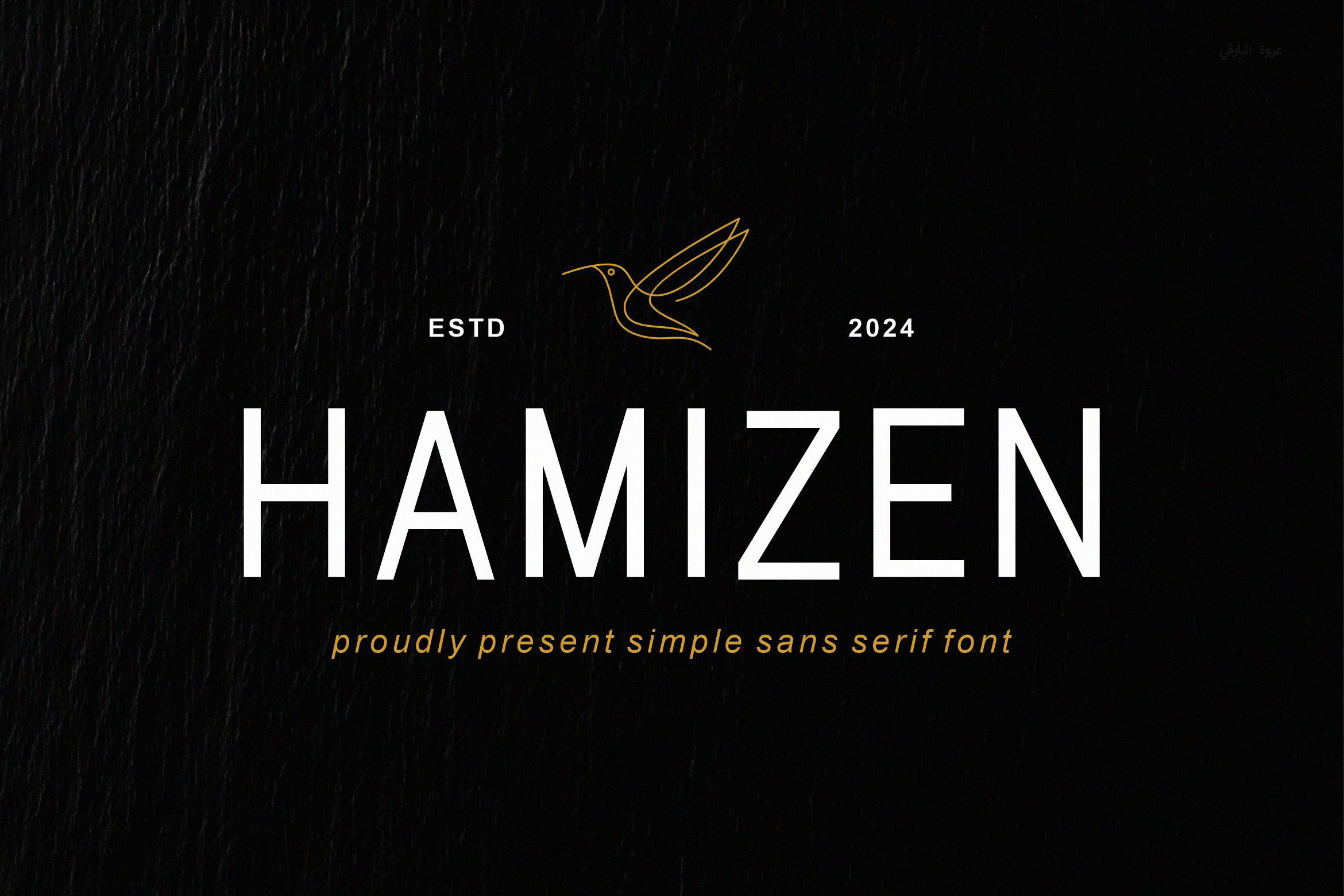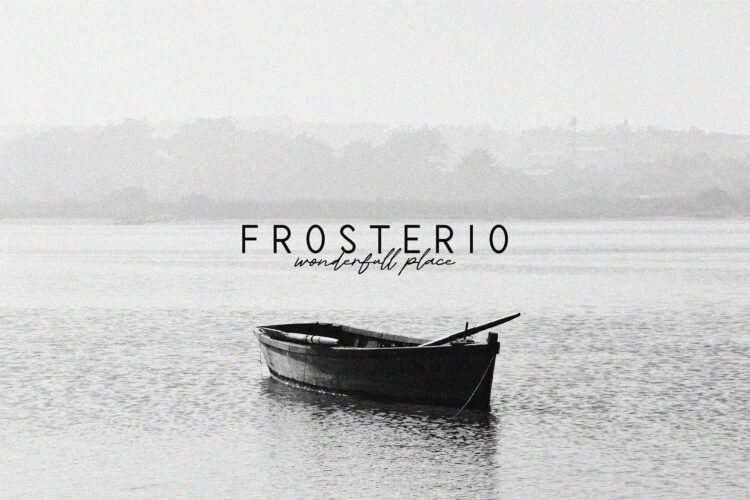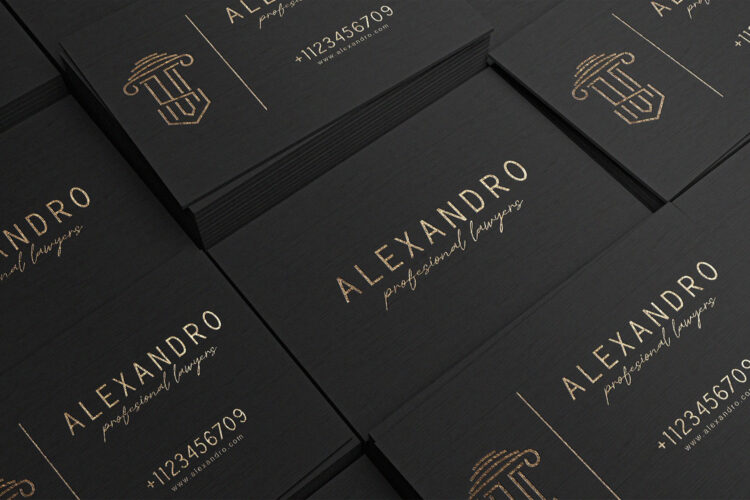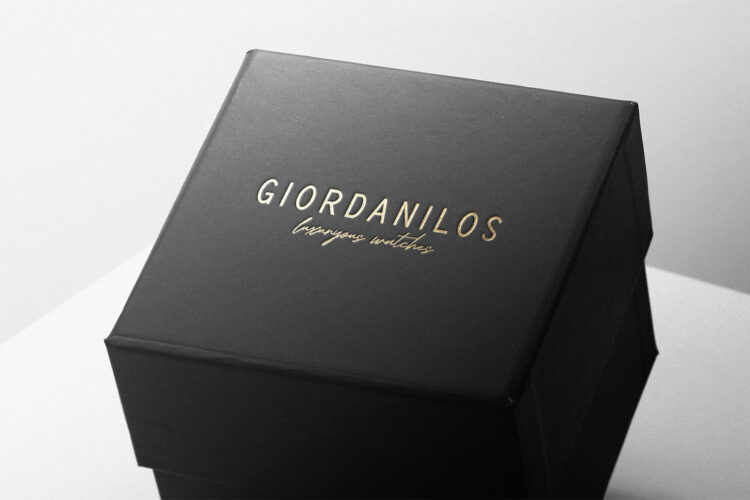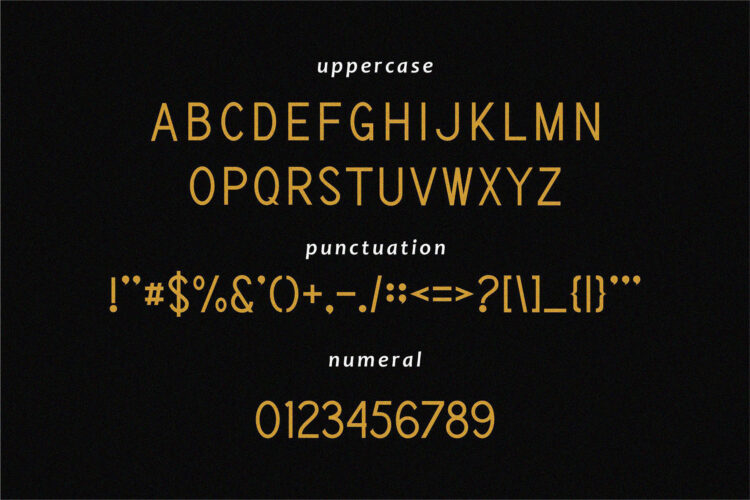
Introducing our new Hamizen, modern sans serif font with elegant style this is perfect for branding, logos, invitation, magazines, product packaging and more.
Hamizen – Simple & Modern Sans Serif